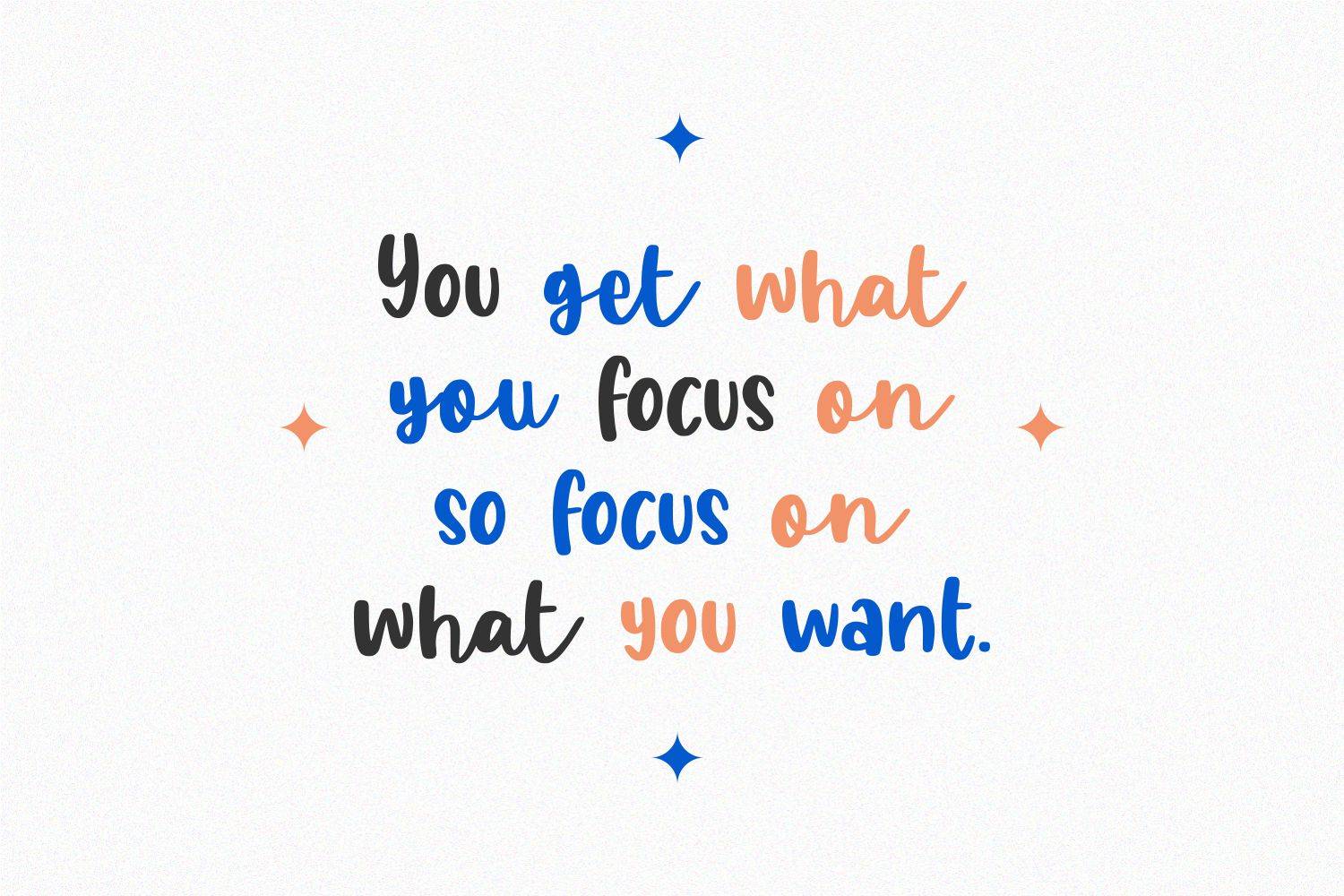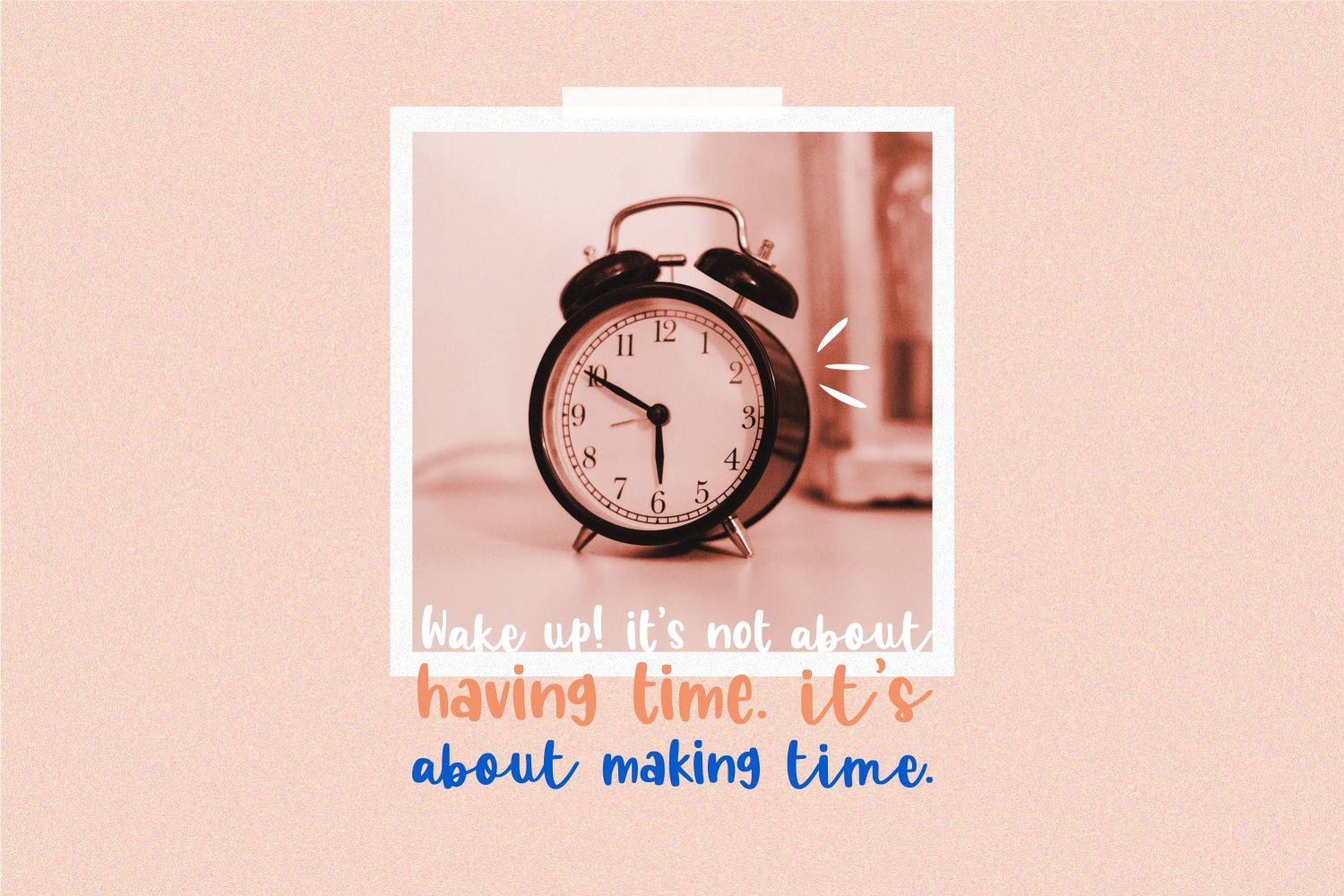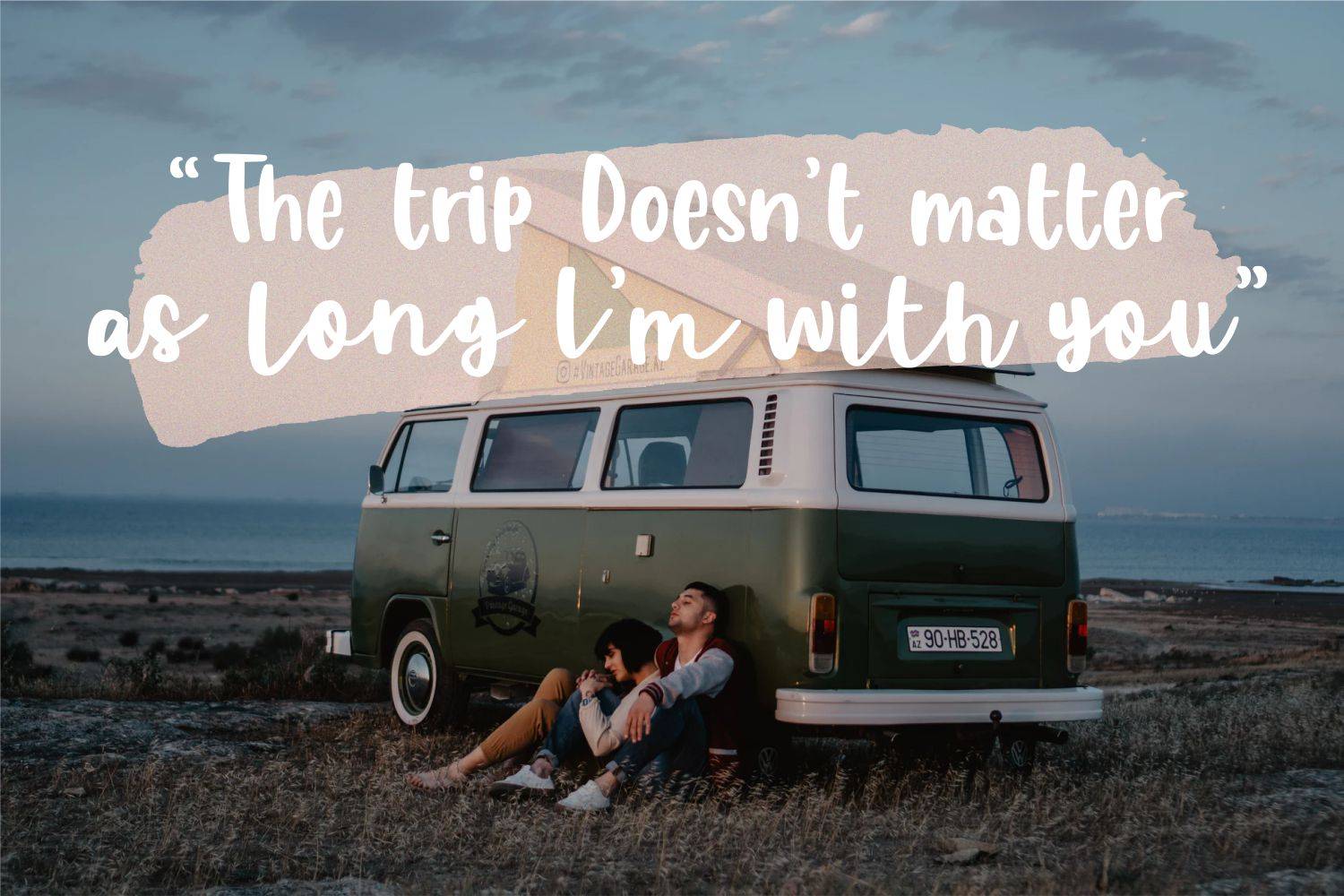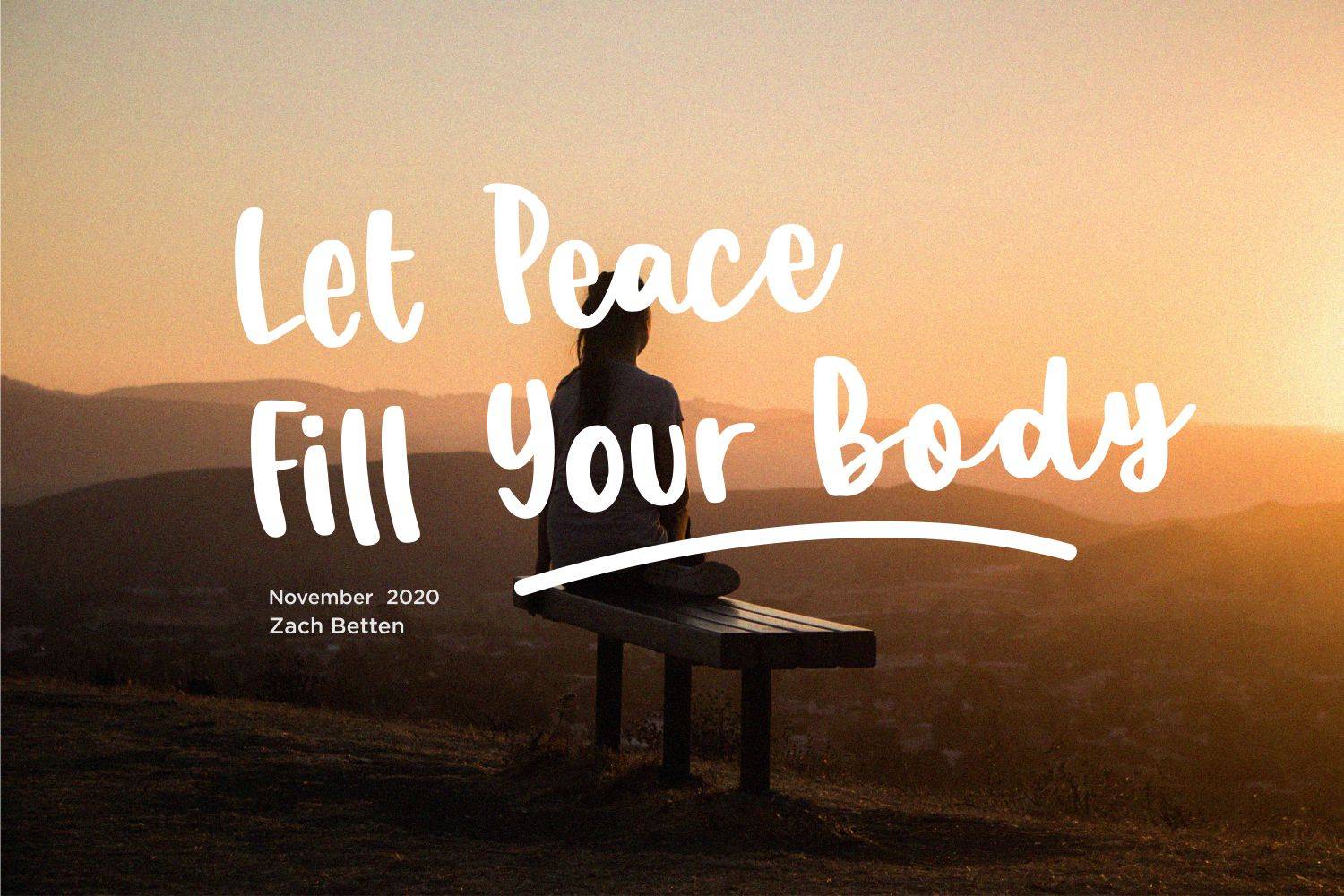
Butter Tropical is a playful and bold handwritten sans serif font with a friendly, casual vibe. Its tall, slightly condensed letterforms feature soft, rounded strokes and consistent weight, making it perfect for lively and approachable designs. This font works well for children’s branding, party invites, and any project seeking a fun, informal style.
Butter Tropical Font
About Butter Tropical Font